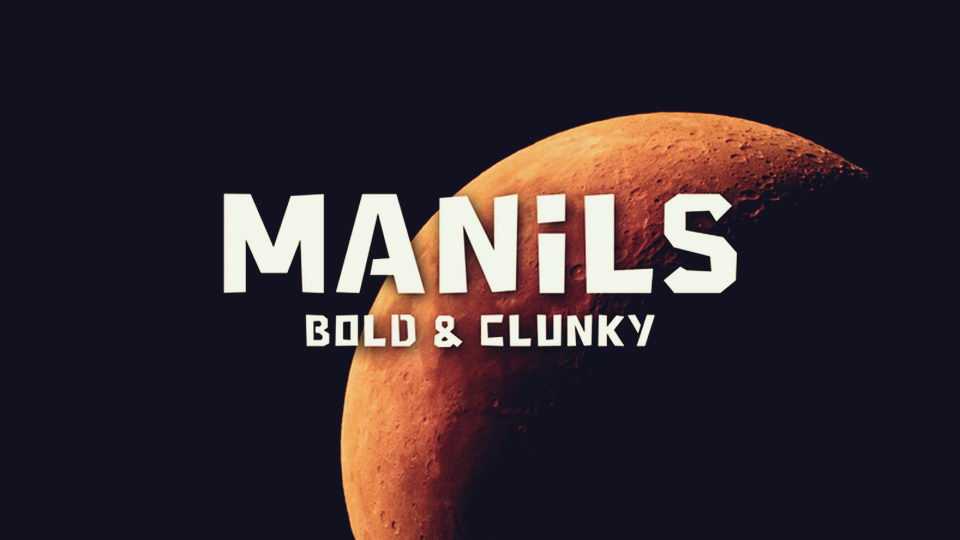
Download Manils font, a bold and clunky fun all caps display typeface. Manils font perfectly fits for posters, headlines, comics, games and craft projects.
Designer: Szymon Furjan